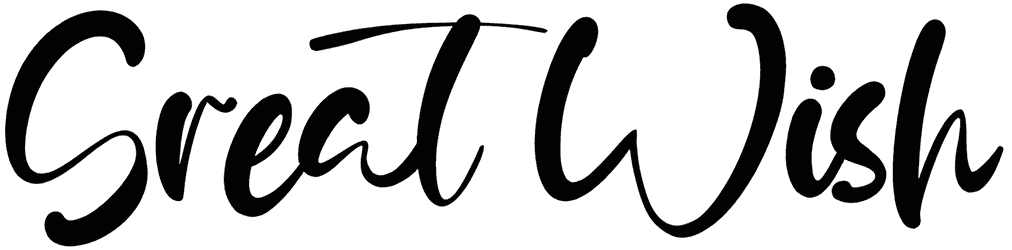
Great Wish Font
Are you searching for an eye-catching manual face to trim your modern design? Great Wish, as a handwritten font with a soft and modern vibe, can do it for you. With the almost full support of characters, this sweet cursive font can be an attractive option for various creative designs, namely postcards, apparel, mugs, novels, and the like.